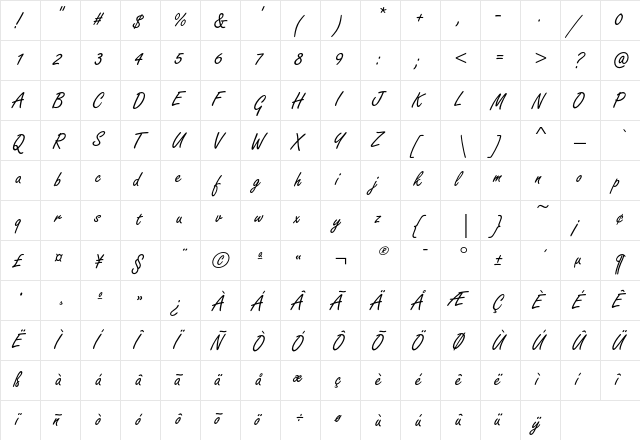
FreestyleScriptEF Reg Font Preview
FreestyleScriptEF Reg
Design Context for FreestyleScriptEF Typeface
FreestyleScriptEF flows with the natural rhythm of handwritten lettering, making it ideal for designs that call for warmth and personal expression.
Font Pairing: Combine FreestyleScriptEF with a simple geometric sans for maximum contrast — the tension between flowing curves and clean structure is a classic typographic pairing.
Pro Tip: Use FreestyleScriptEF for short runs of text — names, titles, or taglines. Extended body copy in script faces tires the eye quickly.